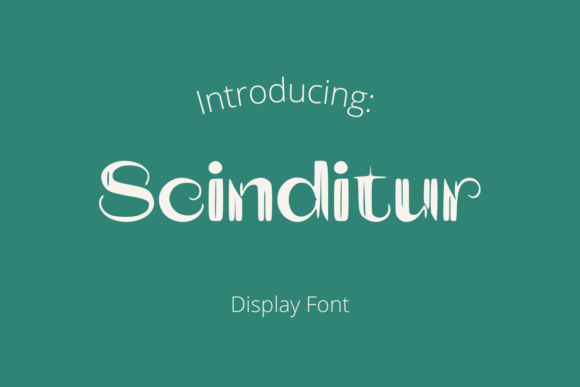
Introducing Scinditur Font, a display font family that takes you on a journey through time, elegantly blending the past and future with every letter. Created by the talented Sparkylicious, this font is a visual masterpiece that will leave your audience in awe.
Dive into a world of sleekness and futurism, where clean lines and sharp angles combine to create a modern, cutting-edge aesthetic. Scinditur's unique design captivates the eyes, transporting you to a realm of innovation and creativity. Yet, beneath its modern exterior lies a touch of tradition, expressed through its graceful curved accent lines that add a hint of familiarity and warmth.
With Scinditur as your creative weapon, you'll conquer the digital world, making your projects stand out with unparalleled style and distinction. Its captivating presence ensures that your designs will leave a lasting impression, whether you're crafting logos, designing websites, or creating eye-catching social media posts.
Scinditur is more than just a font; it's an experience. Immerse yourself in its futuristic charm, let your imagination soar, and watch as your designs transform into masterpieces. Every letter you type will be a brushstroke of brilliance, painting a picture of innovation and creativity.